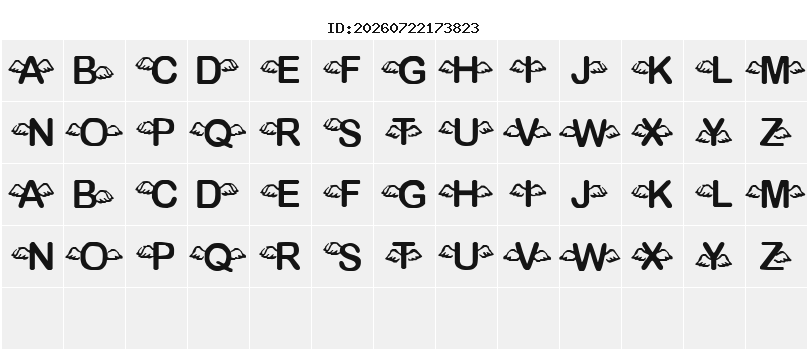
JI-Kitsch Preview
• Font Name: JI-Kitsch
• Font ID: Macromedia Fontographer 4.1 Lust Angeleno
• Full Font Name: JI-Kitsch
• Version: Macromedia Fontographer 4.1 4/20/2001
• PostScript Name: JI-Kitsch
• Character Count: 86
• Designer: JupiterImages
About JI-Kitsch.ttf
JI-Kitsch.ttf is a modern, elegant sans-serif font designed for ultimate readability and visual harmony. Perfect for branding, headlines, web design, and print materials.